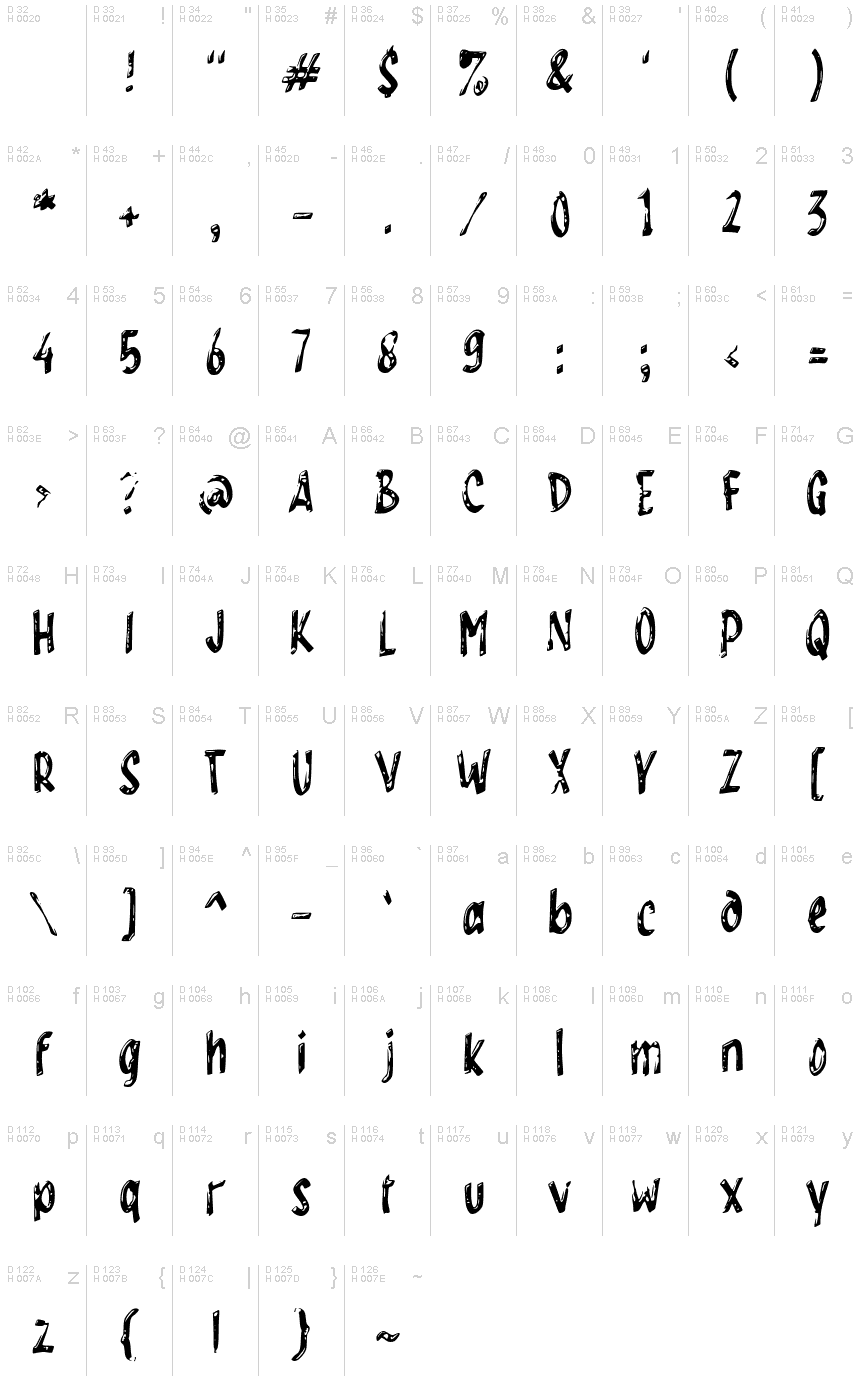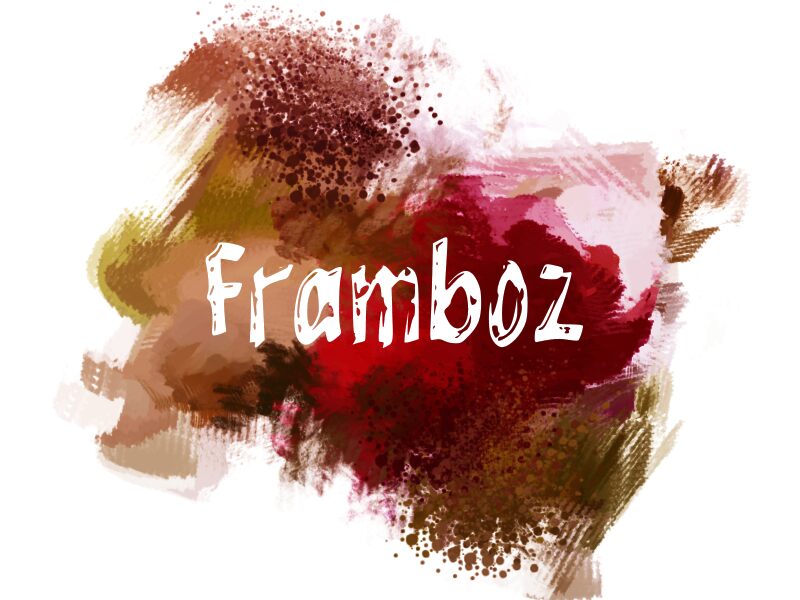
Framboz
Framboz, designed by wep, is an exquisite display font that exudes a unique eroded style. Its semi-bold weight adds a touch of boldness while maintaining readability.
Perfect for vintage-inspired projects, this font effortlessly adds character to retro logos and posters. With its distinct texture, Framboz creates an authentic aged look that is ideal for grunge-inspired album covers and book titles.
Let your creativity run wild as you use this versatile typeface to bring a touch of nostalgia into your designs.